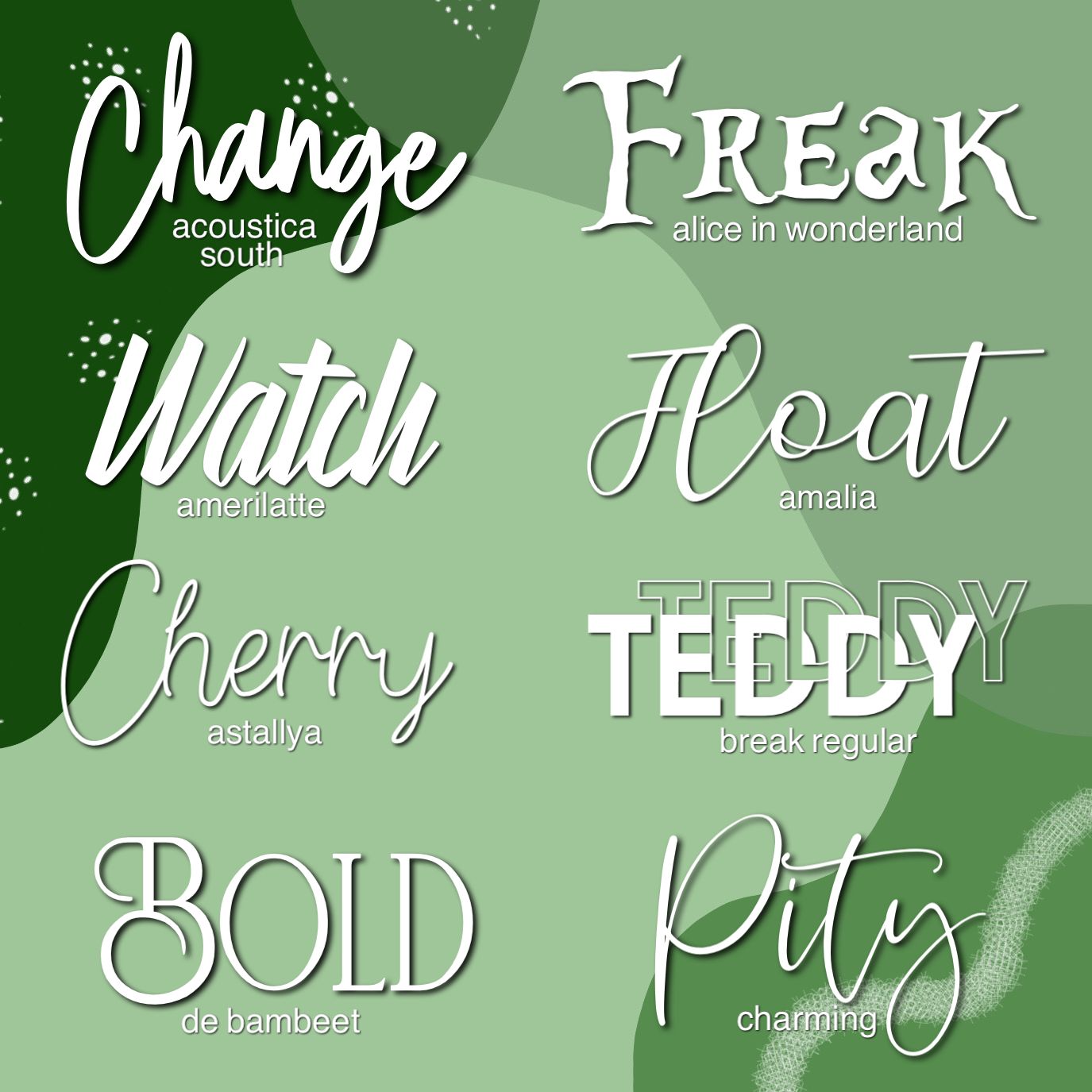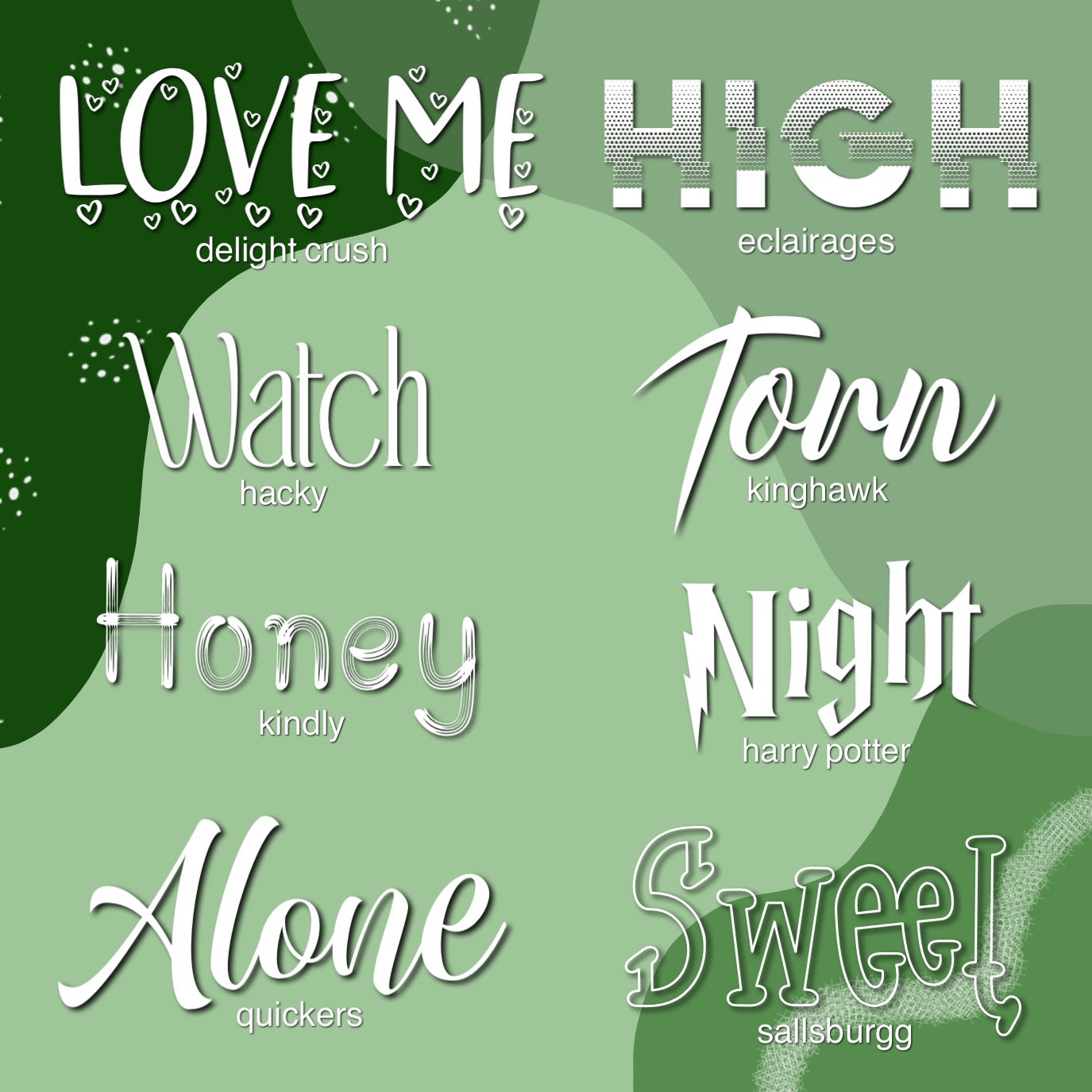
✨ fonts pt.6 ✨
today , i'll be sharing more amazing fonts i've found on dafont.com , this chapter has a lot of cursive fonts as well as other bold/fun fonts
this is my favorite fonts chapter so far haha , the fonts are really fun and can be used for many different types of graphics . i also made the background picture i used here , so it can give y'all an idea of what the next tutorial will be on <3
you can get these off of dafont.com , the text example is at the top and the actual font name is below it . i hope y'all can find some new and great fonts ! <3 —